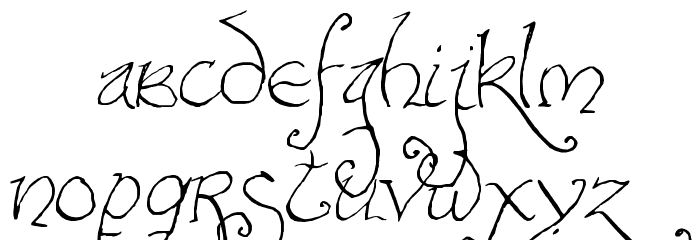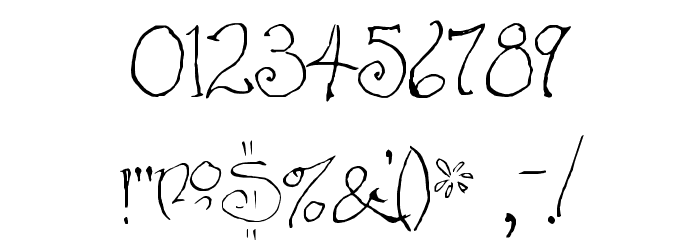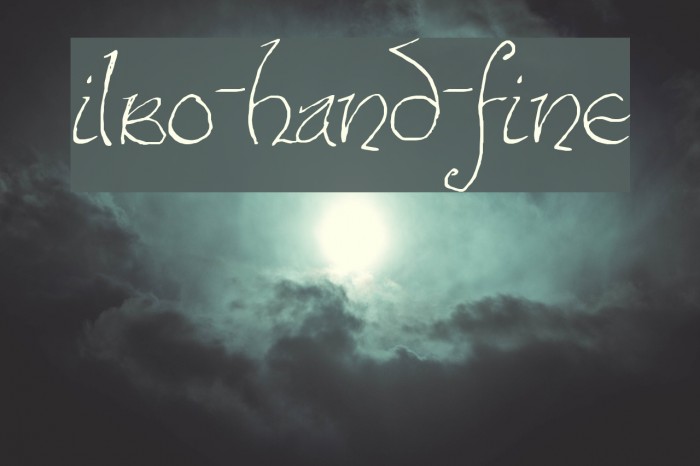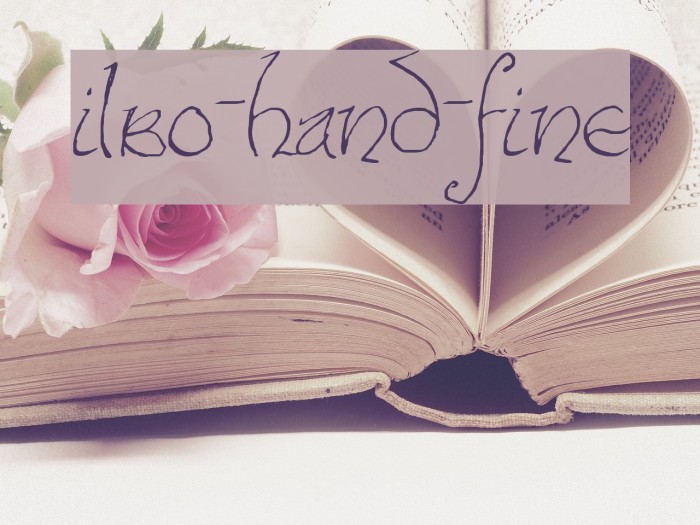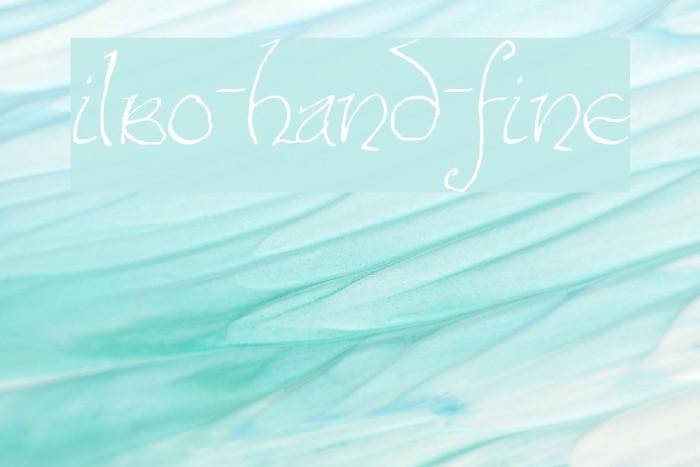
Bilbo-hand-fine Font
This font exudes a whimsical and artistic flair, characterized by its flowing, handwritten style. Each letter is crafted with delicate curves and elegant swirls, giving it a unique and personal touch. The font features a mix of thin and slightly thicker strokes, adding a subtle contrast that enhances its legibility while maintaining an artistic appearance. The characters are slightly slanted, contributing to a dynamic and lively feel. Special characters and numbers are designed with the same attention to detail, ensuring consistency throughout. This font is perfect for projects that require a touch of elegance and creativity.
A whimsical, artistic handwritten font with elegant curves and swirls.